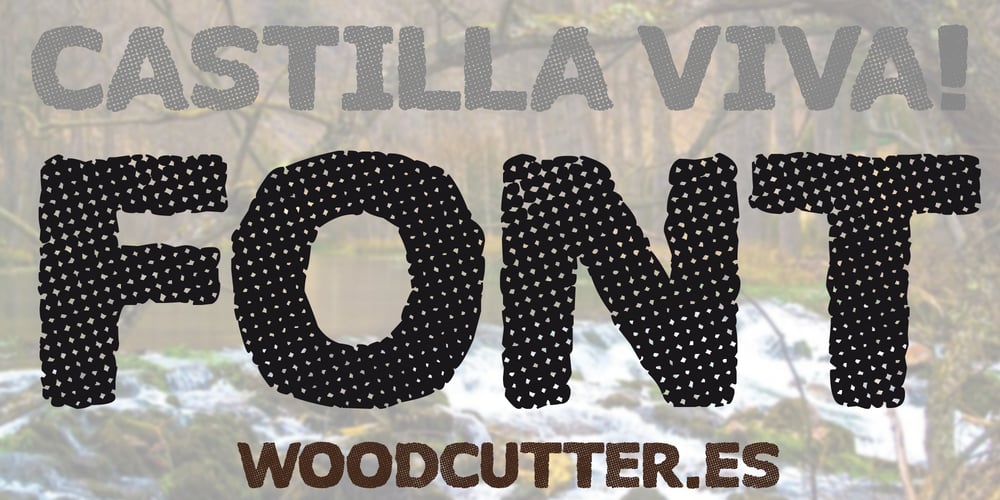
Castilla Viva Font Family was designed by Jordi Manero and published by Woodcutter. Castilla Viva contains 1 styles and family package options. “Castilla Viva” is an uppercase font featuring a worn and slightly irregular style. The letters are not solid but are formed by a subtle texture that gives them an aged and textured appearance. This font conveys a sense of antiquity and rusticity, as if it has been carved into stone or woven into fabric over time. Its delicate and detailed look makes it perfect for projects that aim to evoke a historical or handcrafted aesthetic, adding a touch of character and authenticity to any design that seeks to stand out for its uniqueness.